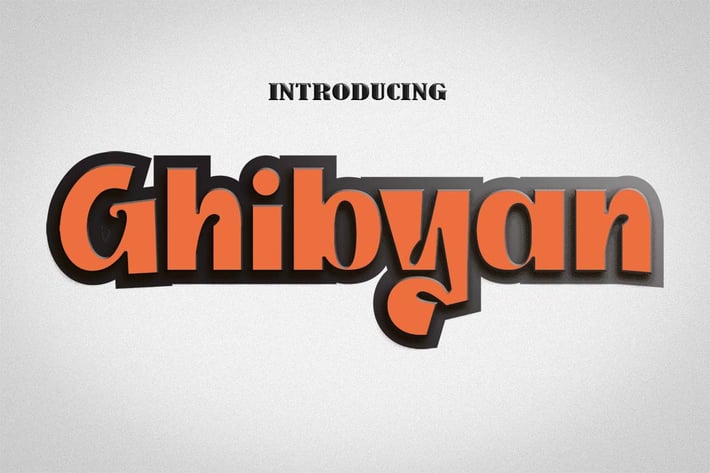
Ghinibyan - Display Font
Introducing Ghinibyan, a simple, unique, and modern font.
So perfect for you who needs a typeface for logo designs, magazine, social media, brochure, and many more.